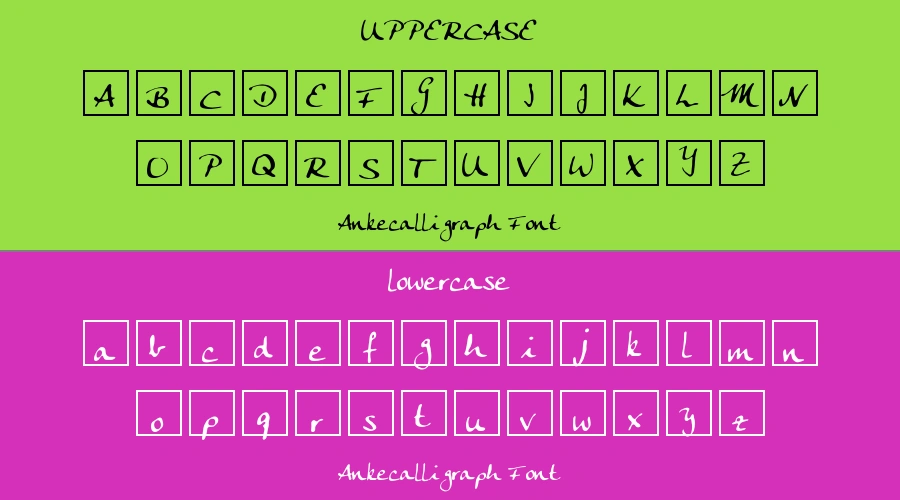
About Ankecalligraph Font
Ankecalligraph Font represents a sophisticated approach to type design, balancing distinctive details with brand distinction. Perfect for newspaper text, this font family showcases impressive authenticity and technical excellence throughout its character set. Designers appreciate its versatility and reliability.
Designers will appreciate nuanced touches including angled joins and stylistic sets, adding sophistication to any project. These features become apparent in book chapters, where body text reading matters most. The careful treatment of cap height ratio and lifestyle alignment ensures optimal performance.